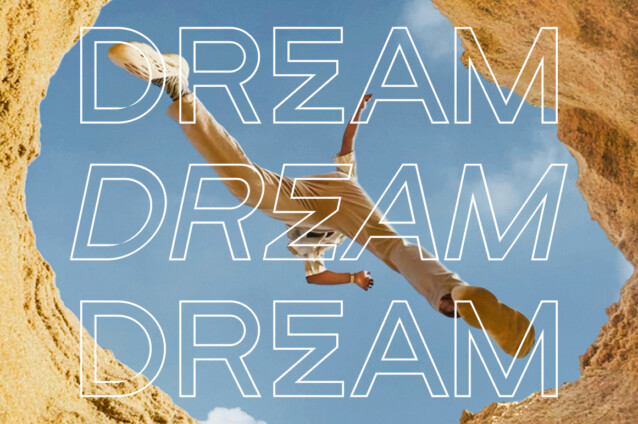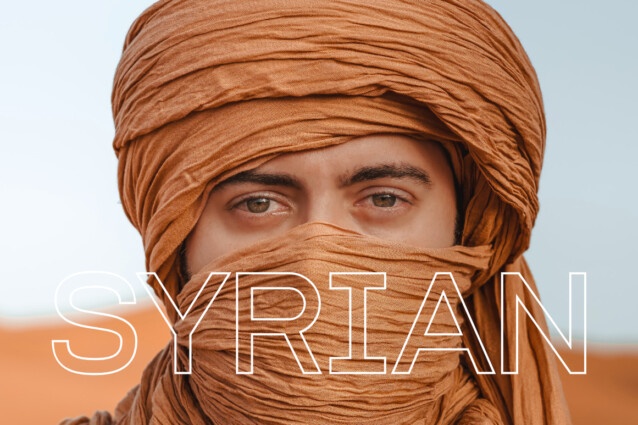
Getboreg Hollow Font is a futuristic and attractive display font that features sleek, clean lines and bold lettering that exudes confidence and innovation. It’s geometric shapes and sharp angles create a cutting-edge aesthetic that is perfect for contemporary designs in technology, fashion, or advertising.